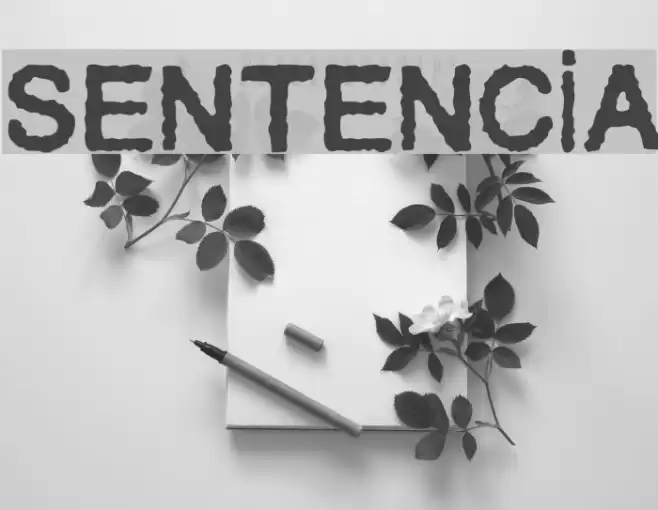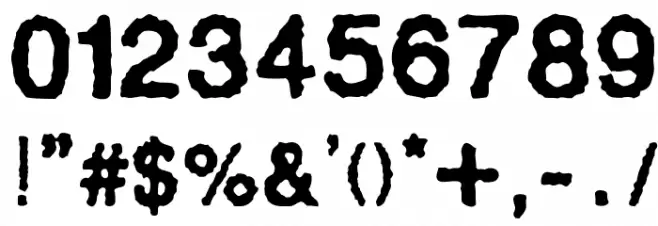
Sentencia Font
Sentencia Description
This font features a bold and rugged appearance, characterized by its distressed and textured letterforms. The uppercase letters are prominent and display a slightly uneven edge, giving a hand-crafted feel. The numbers and special characters maintain this rough texture, adding to the overall rustic aesthetic. The font's style is reminiscent of vintage or industrial design, making it suitable for projects that require a bold and impactful visual statement.
A bold, textured font with a rugged, vintage feel from Uncategorized fonts.
- Proposed Projects: Ideal for posters, branding, packaging, and any design that seeks a vintage or industrial look.
- Overall Style: Vintage